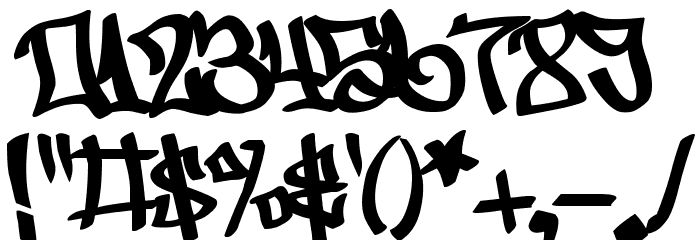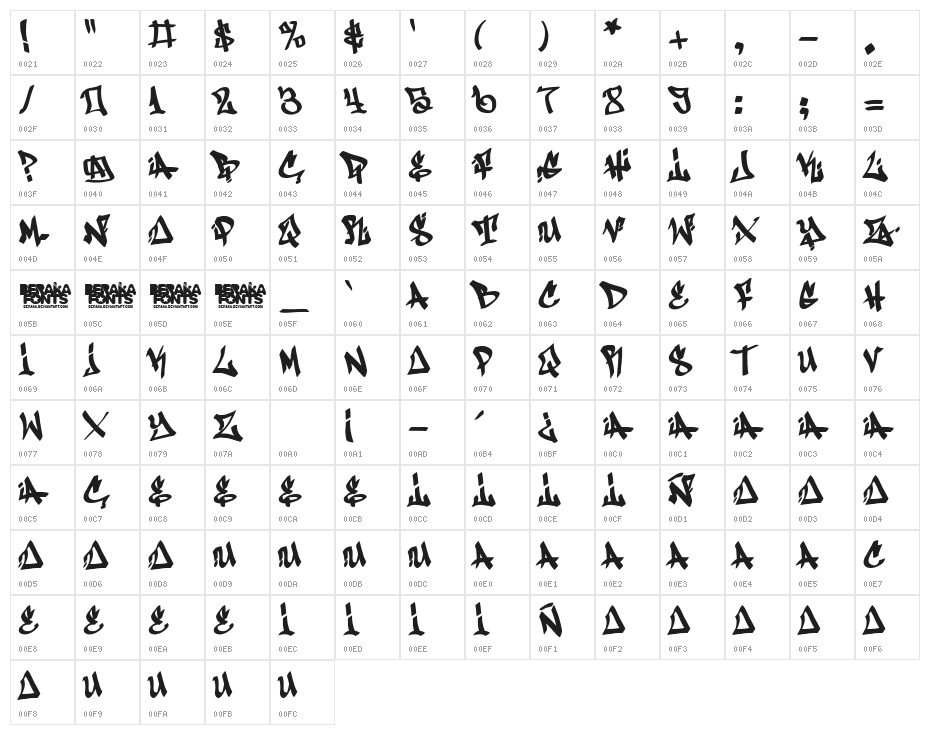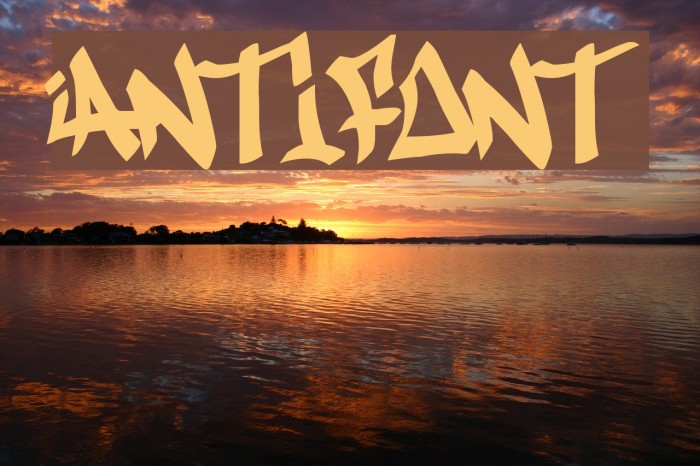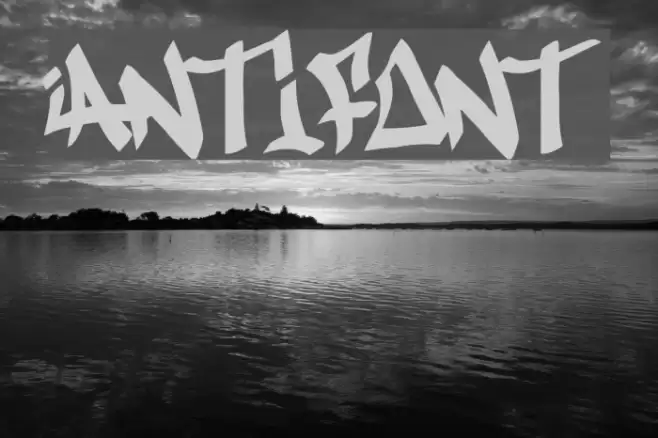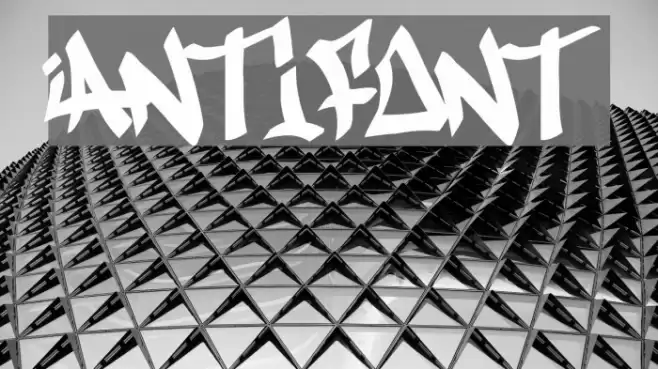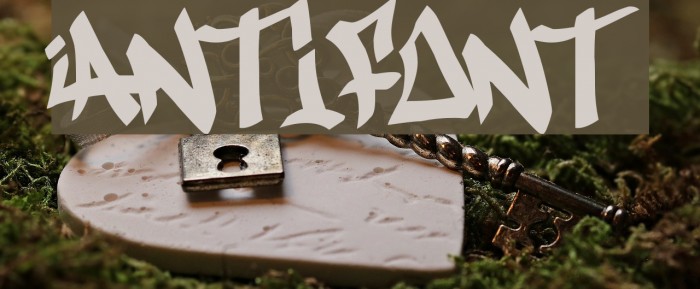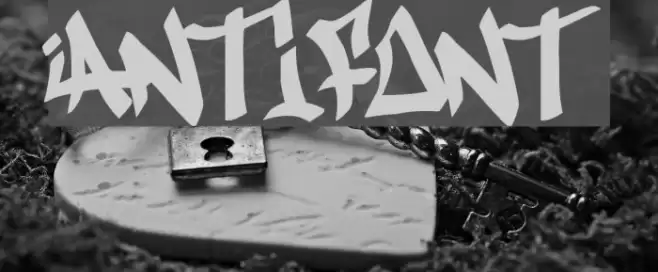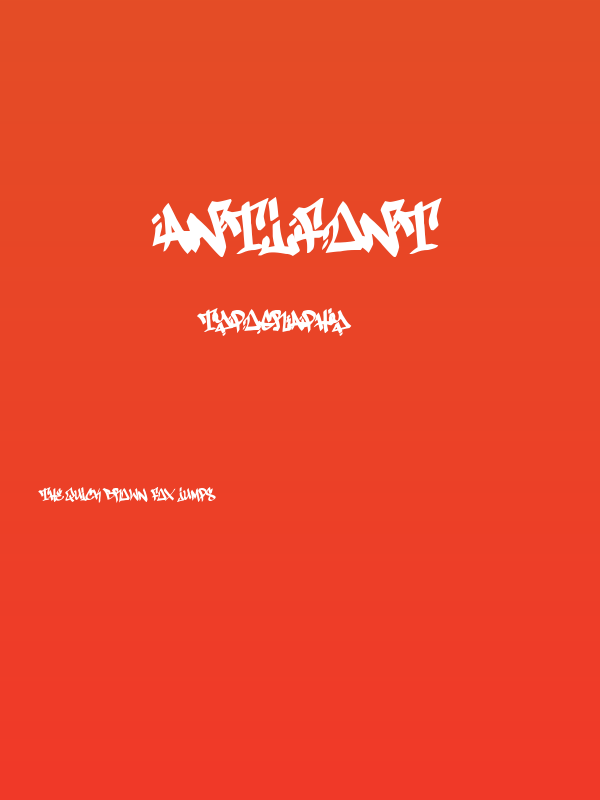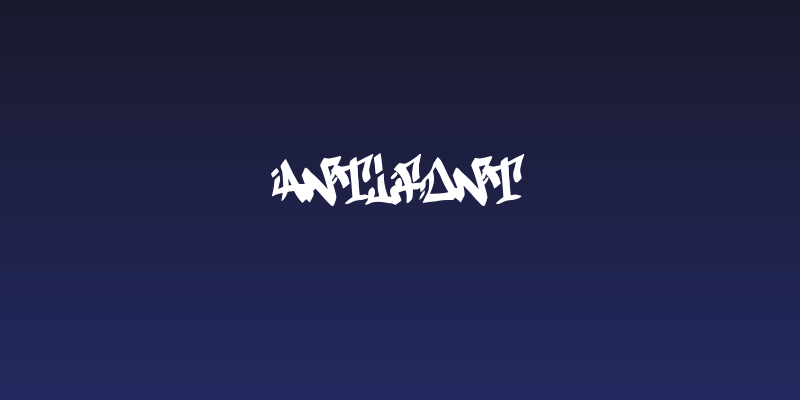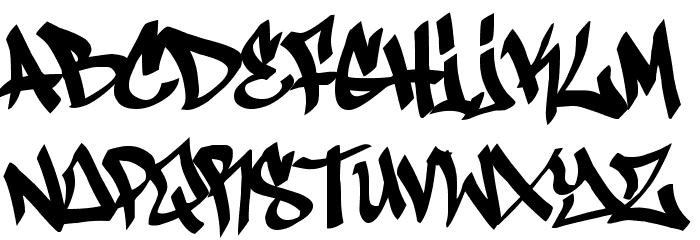
Antifont Font
Antifont Description
This font exudes a bold and rebellious energy, characterized by its graffiti-inspired style. The letters are dynamic and angular, with sharp edges and a sense of movement that suggests urban street art. Each character is uniquely stylized, giving the font a handcrafted feel. The uppercase and lowercase letters maintain a consistent aesthetic, while the numbers and special characters integrate seamlessly into the overall design. This font is perfect for projects that aim to capture an edgy, youthful, and artistic vibe.
| Overall Style | Urban, Edgy, Artistic |
| Proposed Projects | Ideal for street art designs, urban-themed posters, music album covers, and edgy branding projects. |